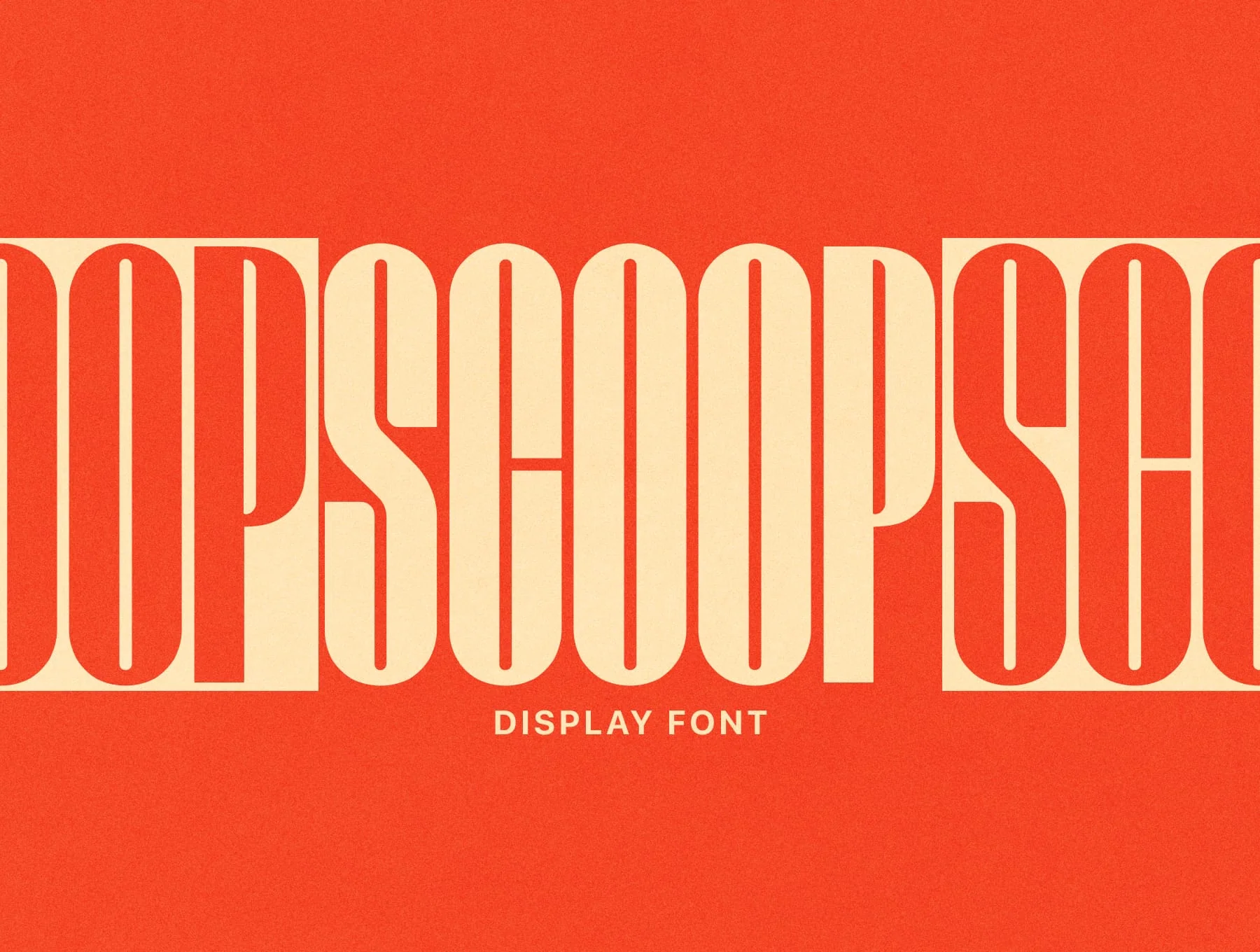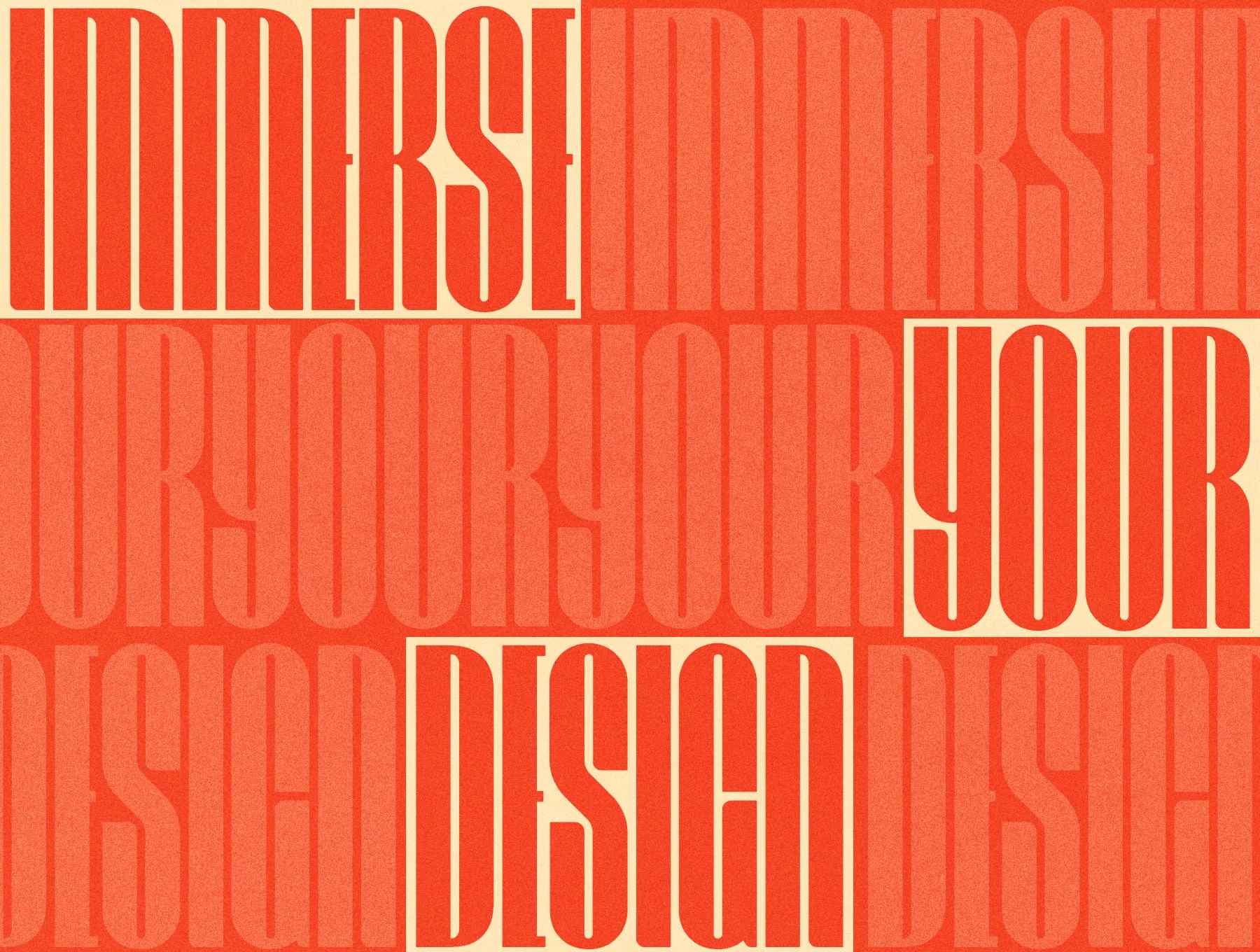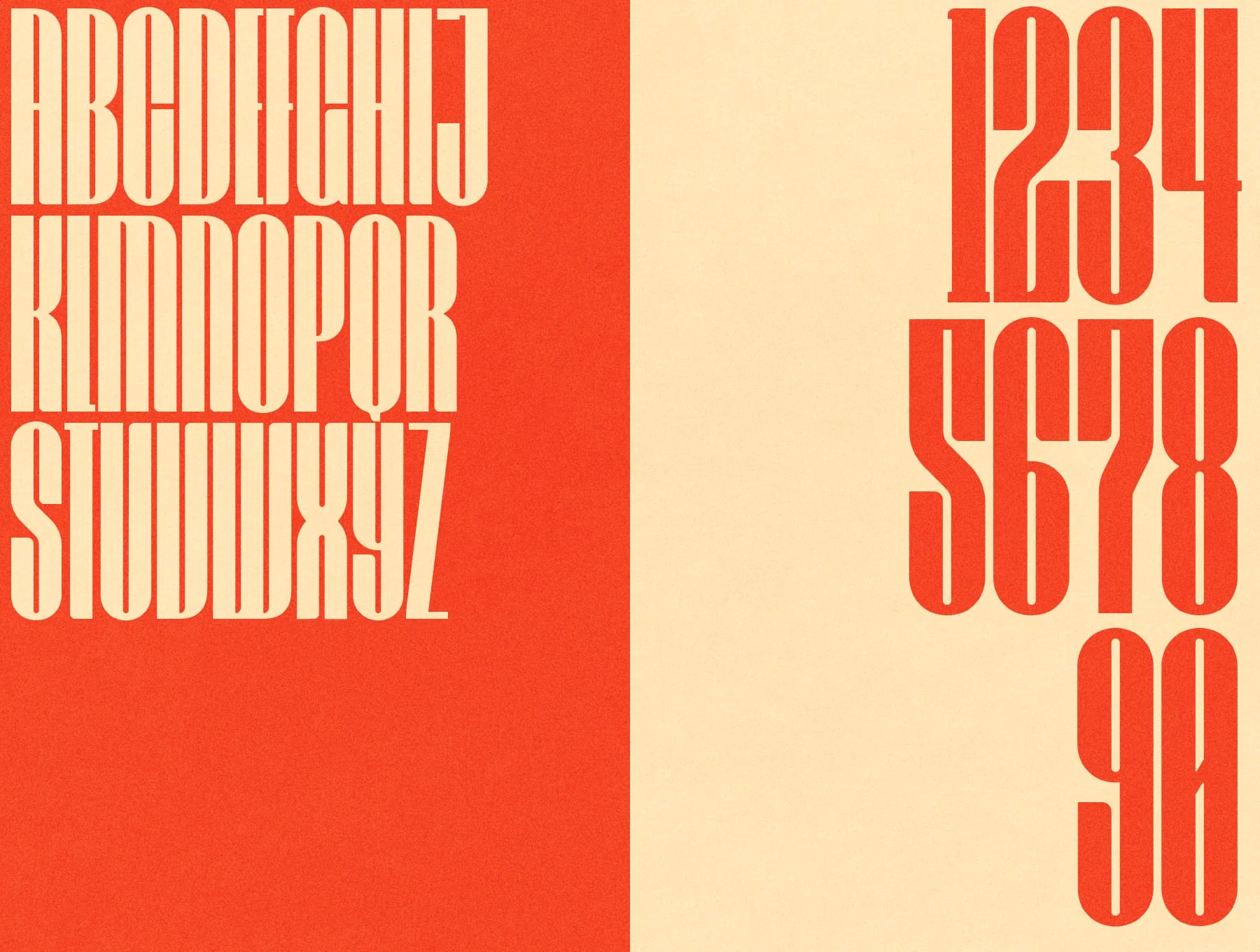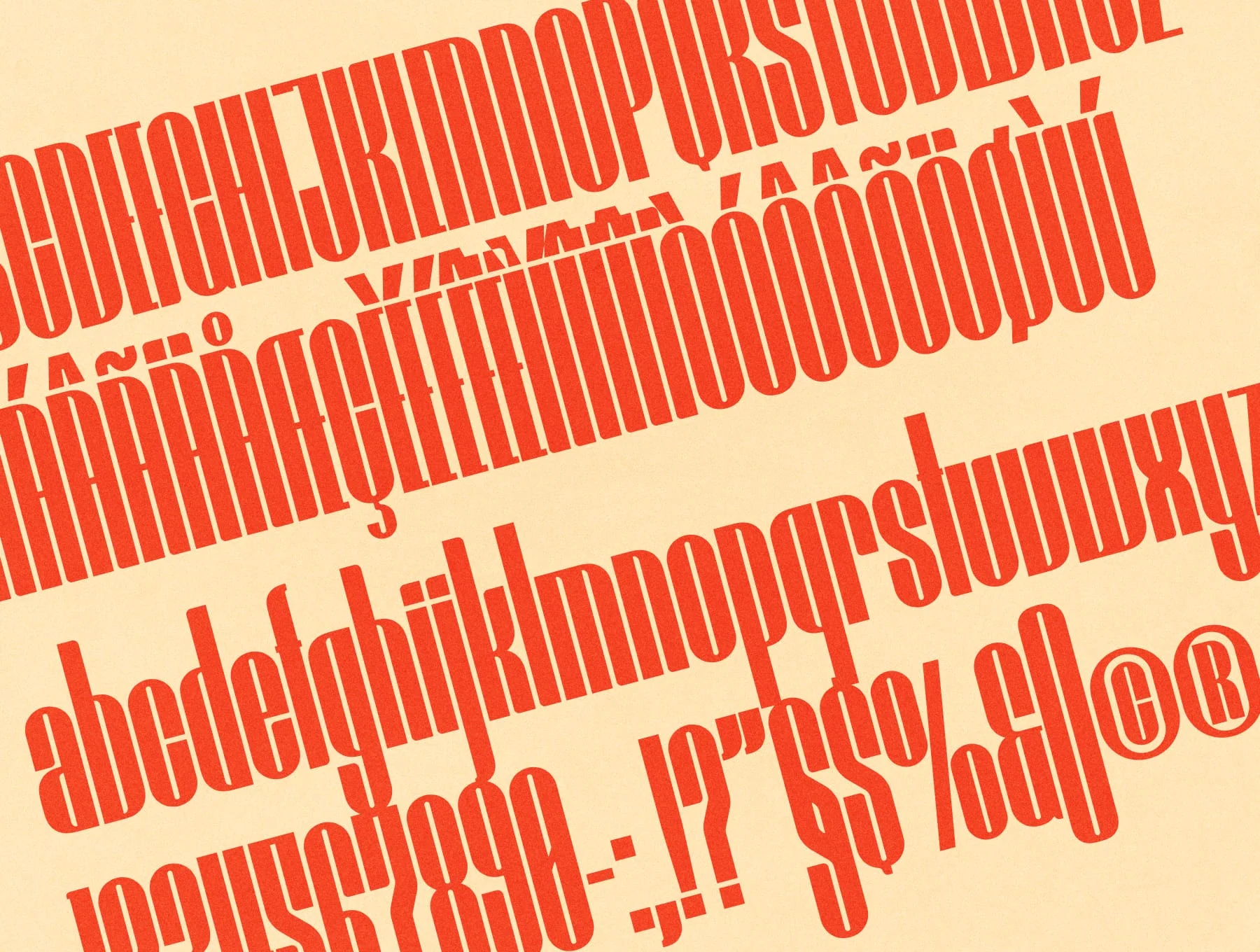
Scoop Display Font
Retro geometric display typeface
Capital and small letterforms
Built with geometric shapes
Vintage-inspired look
Scoop Display is a stylish geometric typeface blending retro character with a fresh modern feel. Clean strokes, rounded corners, and balanced forms create a nostalgic yet contemporary look that helps your text stand out.